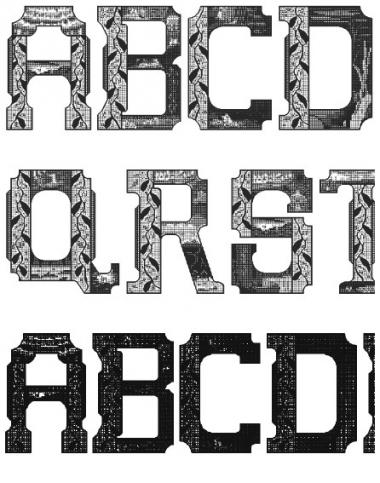
• Part of my "Found Type" project at UWE where we had to design a font for a theme that we chose. I chose Saintly. Throughout my research, I looked at the architecture of churches, the similarities in there designs and how certain shapes could easily be recognised as being linked to that type of architecture. I then started looking at Dante Alghieri's Divine Comedy and the illustrations by John Flaxman and Gustav Doré. At first it became difficult trying to figure out how to implement this into a font, but then I took on a challenge, Would it be possible to get Doré's engravings into the font. Then another thought crossed my mind, how do images look when compressed to low pixel quality sizes and how they are still recognisable. So I did that, I bought a book of Doré's illustrations for the divine comedy, and they started to build into the letters. Each letter also has this Art Deco like area to it which went well for the Stain Glass Window approach I also wanted in the design. It took a lot of practice to get this right, and there was a fair amount of copy and pasting here and there but overall I'm quite happy with the turn out. I hope you all enjoy!
Superb detail. Good to see the UWE are back in town.
Magnificent! I think Saintly really suits for this kind of design.
Incredible details!
I have some problems to see this big fonts on my screen. This is normal? I see these big decorated fonts with difficulties at big format and they seems not well (blurry) on little format too (here are two samples for that). What can I do, please?
Yeah I've noticed that too not long after I made the font public... I just hope to heck it doesn't show up that way on anything else!
I believe it's just the preview window, downloaded it should look better (although my computer freezes on it - may be too complex...)
I've attempted to download this... well I managed to but when Installing it types out as some weird trajan lookalike... very bizarre.
Can't even comprehend how you did this. it's so good :)
It was bloomin difficult I tells ya! xD
I'd love to do something like it again though, I've become somewhat an art deco/ornate-aholic!
A few notes on the preview widget:
· Solid ”black” displays at 20% dark gray. This is a consistent palette throughout that unifies the site (same gray value as background). A side benefit: it softens the starkness and harsh edges of fontstructions and generally makes them look more refined.
· Above a fixed pixel/brick ratio, the previewer applies a 1 px stroke to the outlines of ALL bricks so that no hairline gaps appear between bricks due to rounding errors.
· Clicking “pxl” will give you a pixel/brick ratio of 1 (as long as filters are set to their default values). Shift+clicking the “pxl” button will zoom in by a factor of 2 from its current position.
The first note is of particular interest for illustrated, or grayscale pxl fontstructions. When black is restored to 0% in the downloaded file, the contrast and apparent gamma shift dramatically. Everything gets darker and more contrasty except for white, and this can bring out some ugly aliasing and posterizing that wasn’t noticeable or offensive in the preview widget. Setting the type color to 20% gray, if possible, helps fix the display issue. My InDesign sample below demonstrates this. The pt setting are 128 pt, 256 pt, and 512 pt for the three lines respectively. Which brings me to my final point of consideration:
· Any grayscale “pixel art” fontstruction will render on screen both blurry and full of moiré aliasing if the pt size is not an integer multiple (or factor) of the pt size which renders a pixel/brick ratio of 1. Thus the sample values of 128, 256, 512 (or 64, 32, 16...)
That helped make sense of the total black out problem; glad it doesn't appear when in use on computer software, that would've been disastrous O_O
In my experience, this can always be determined by checking the character palate or equivalent menu to see what font is actually displaying after the substitution.
The other scenario I can suppose (knowing nothing about your configuration) might be harder to fix. This is the case that the .ttf file you have downloaded is exceeding some OS-level memory constraint and you are getting a weird system-wide substitution.
It's really awesome stuff, can be used on any material and drys like rock.
Also comes in different colours.
I was really desperate to get actual lead tubing, tried ordering some but the only affordable one was in america... and by the time it arrived I would've gone past the deadline.
One thing I learned from this project though, PLAN AHEAD!!!